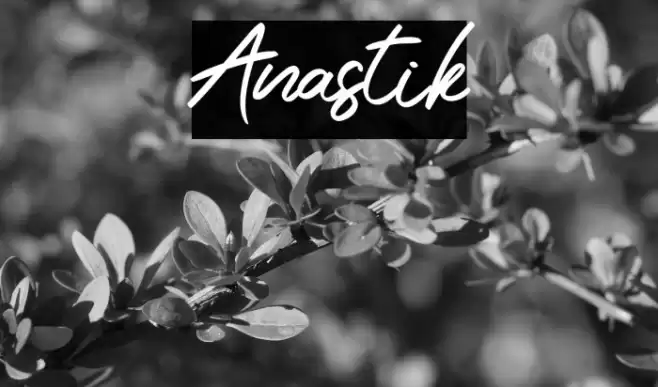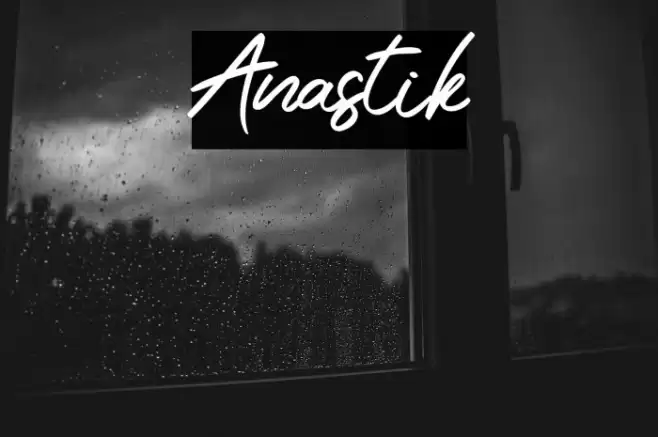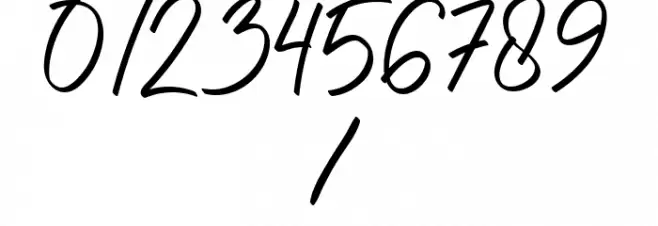
Anastik Font
Anastik Description
This font features a fluid and elegant script style, characterized by its smooth, flowing lines and cursive letterforms. The uppercase letters are bold and expressive, with a slight slant that adds a dynamic feel. The lowercase letters maintain a consistent style, with loops and curves that enhance the handwritten appearance. The numerals are clear and legible, matching the overall aesthetic of the font. Special characters are integrated seamlessly, maintaining the script's cohesive look. This font exudes a sense of sophistication and creativity, making it suitable for a variety of design applications.
A fluid and elegant script font with dynamic, cursive letterforms from Regular fonts.
- Proposed Projects: Ideal for wedding invitations, branding, logos, and elegant stationery.
- Overall Style: Elegant, Handwritten
- Use Case: Logos, Invitations, Branding